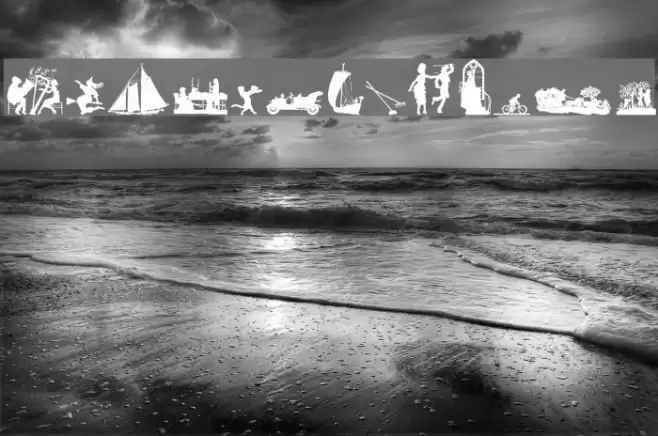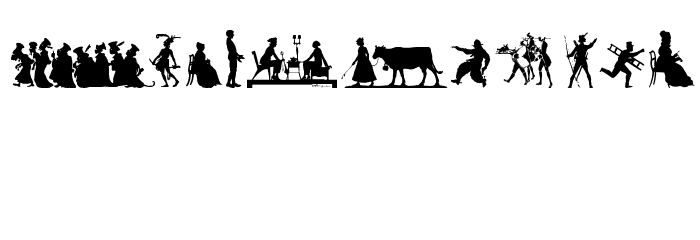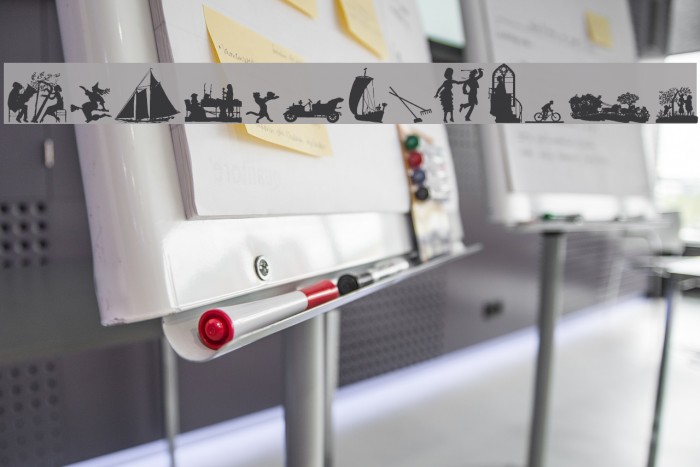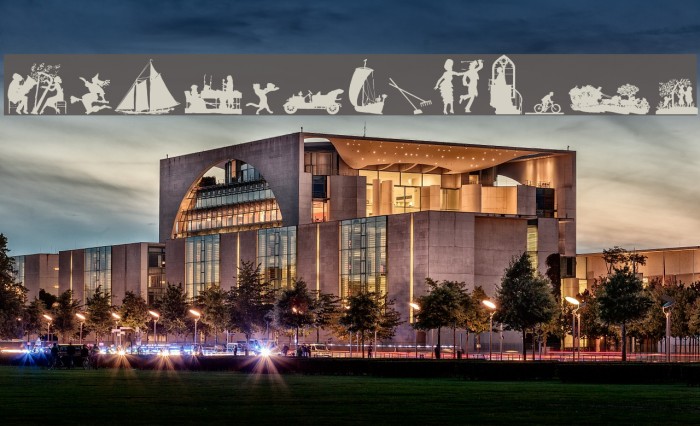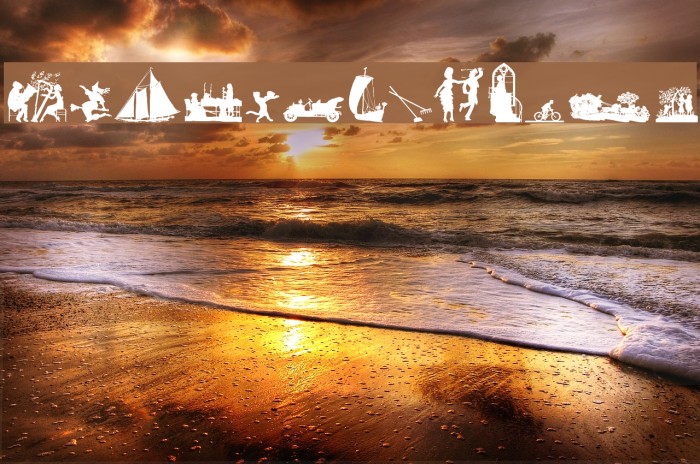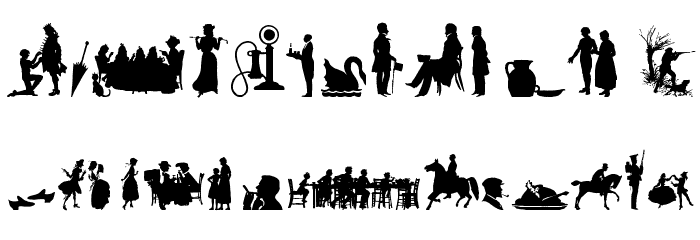
Mixed Silhouettes Seven Regular Font
Mixed Silhouettes Seven Regular Description
This collection features a diverse array of silhouettes, each capturing a unique scene or character. The silhouettes range from people engaged in various activities to objects and animals, all depicted in a solid black style. The designs are intricate, with attention to detail that brings each silhouette to life, making them suitable for a variety of creative projects. The silhouettes convey a sense of storytelling, with each image offering a glimpse into a different narrative or theme. This set is ideal for those looking to add a touch of whimsy or historical flair to their designs.
A diverse collection of detailed silhouettes depicting various scenes and characters from Uncategorized fonts.